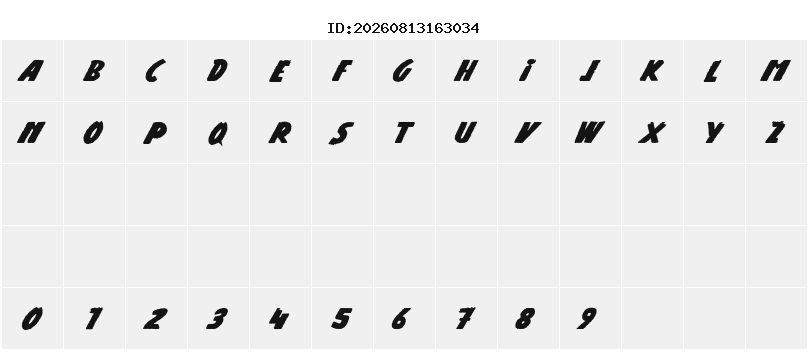
ROAD OF DEAL Preview
• Font Name: ROAD OF DEAL
• Designer: Cataleya Butcher
About ROAD OF DEAL.ttf
ROAD OF DEAL.ttf is a modern, elegant sans-serif font designed for ultimate readability and visual harmony. Perfect for branding, headlines, web design, and print materials.